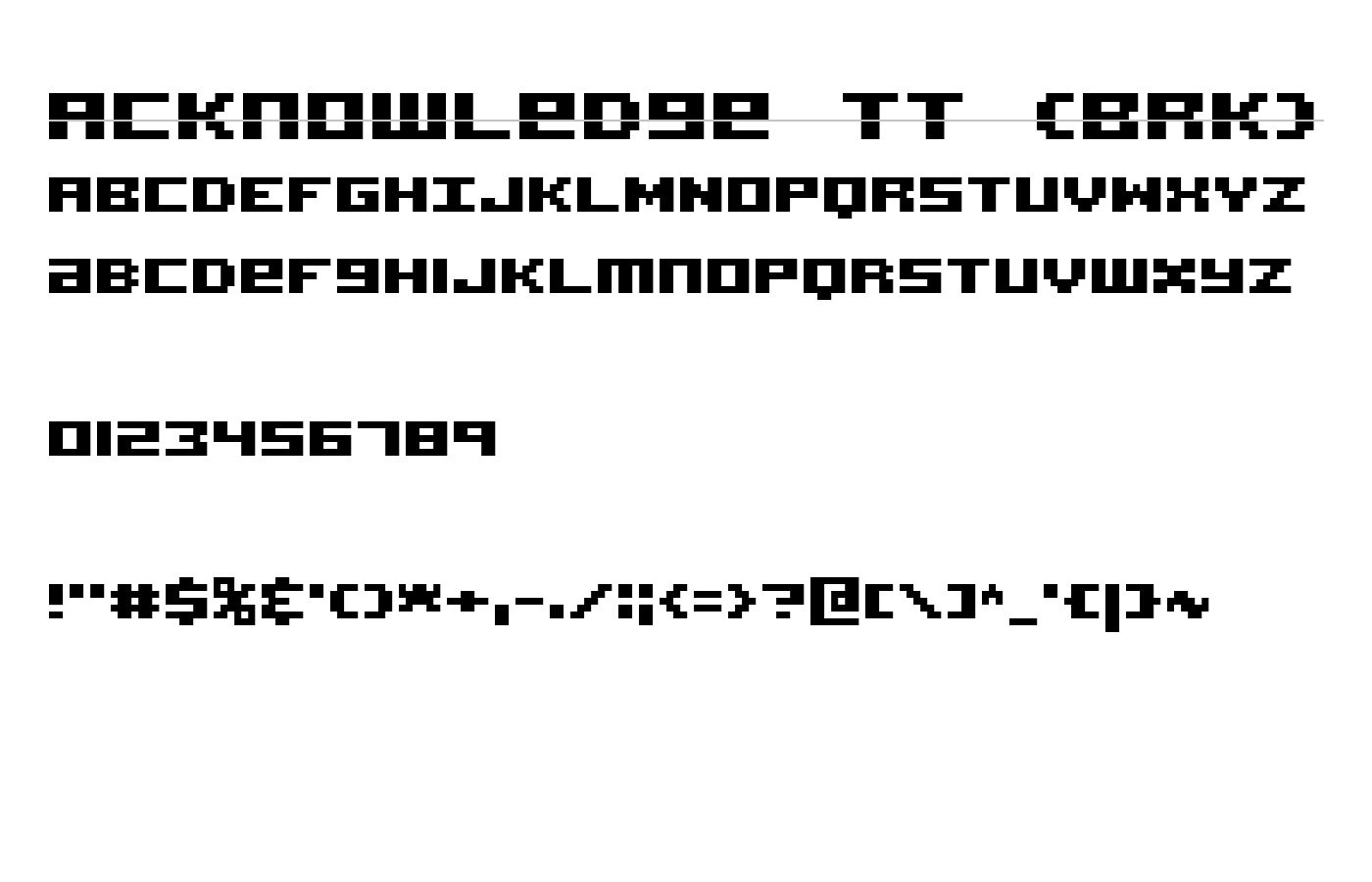
Acknowledge TT (BRK) is a bold, geometric sans serif font with a pixelated, blocky style reminiscent of retro digital displays and video game typography. Its sharp, squared shapes and consistent stroke weight create a tech-inspired, futuristic feel perfect for projects aiming to evoke nostalgia or emphasize digital and gaming culture. This font works well for headlines, logos, and tech-related branding where a strong, modern, and playful appearance is desired.
Acknowledge TT (BRK) Font